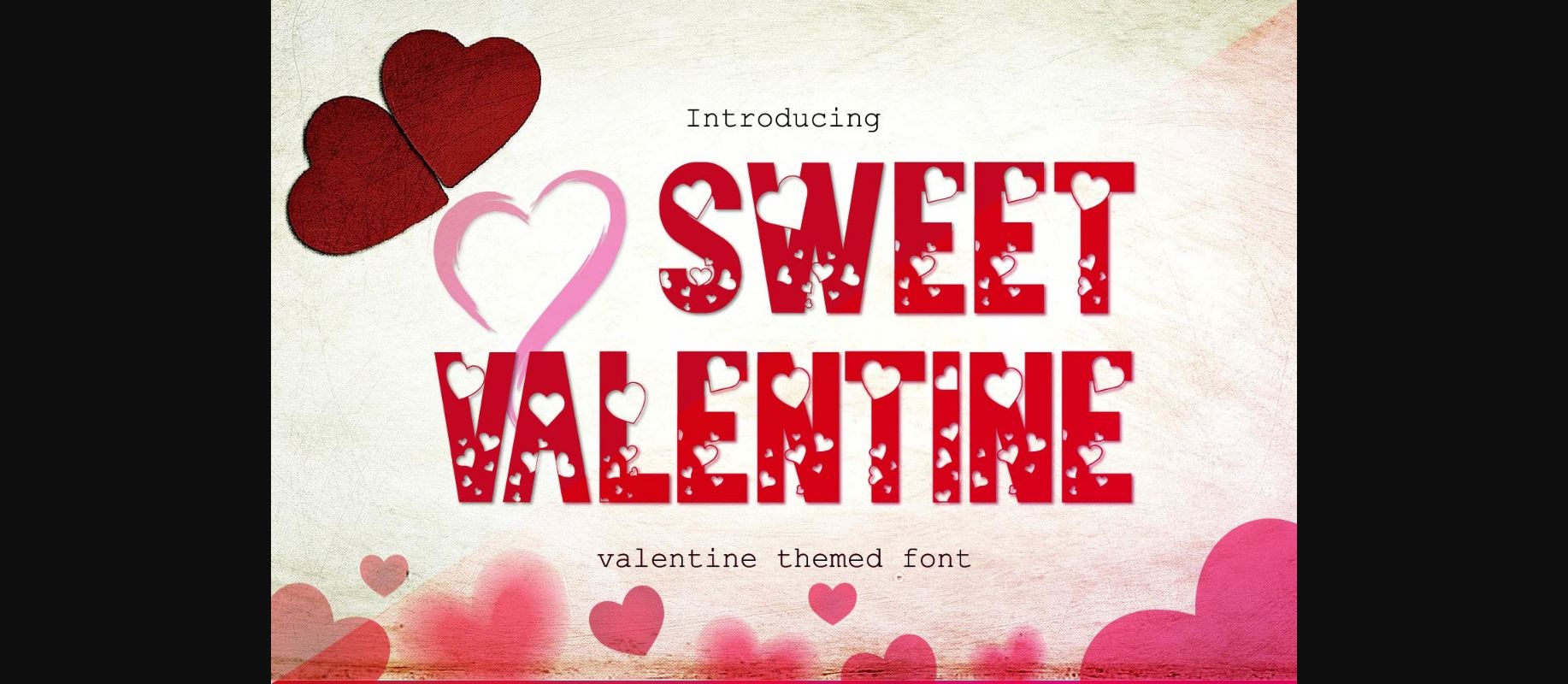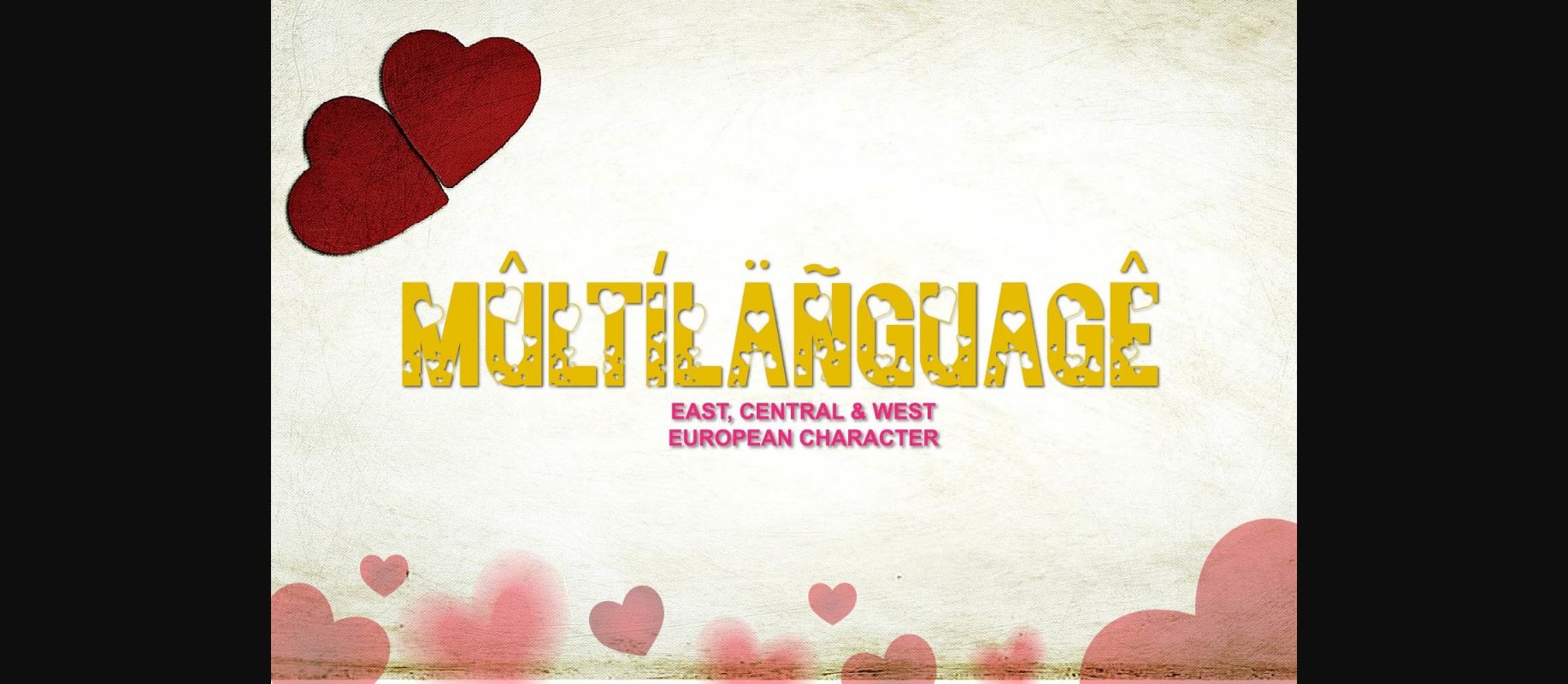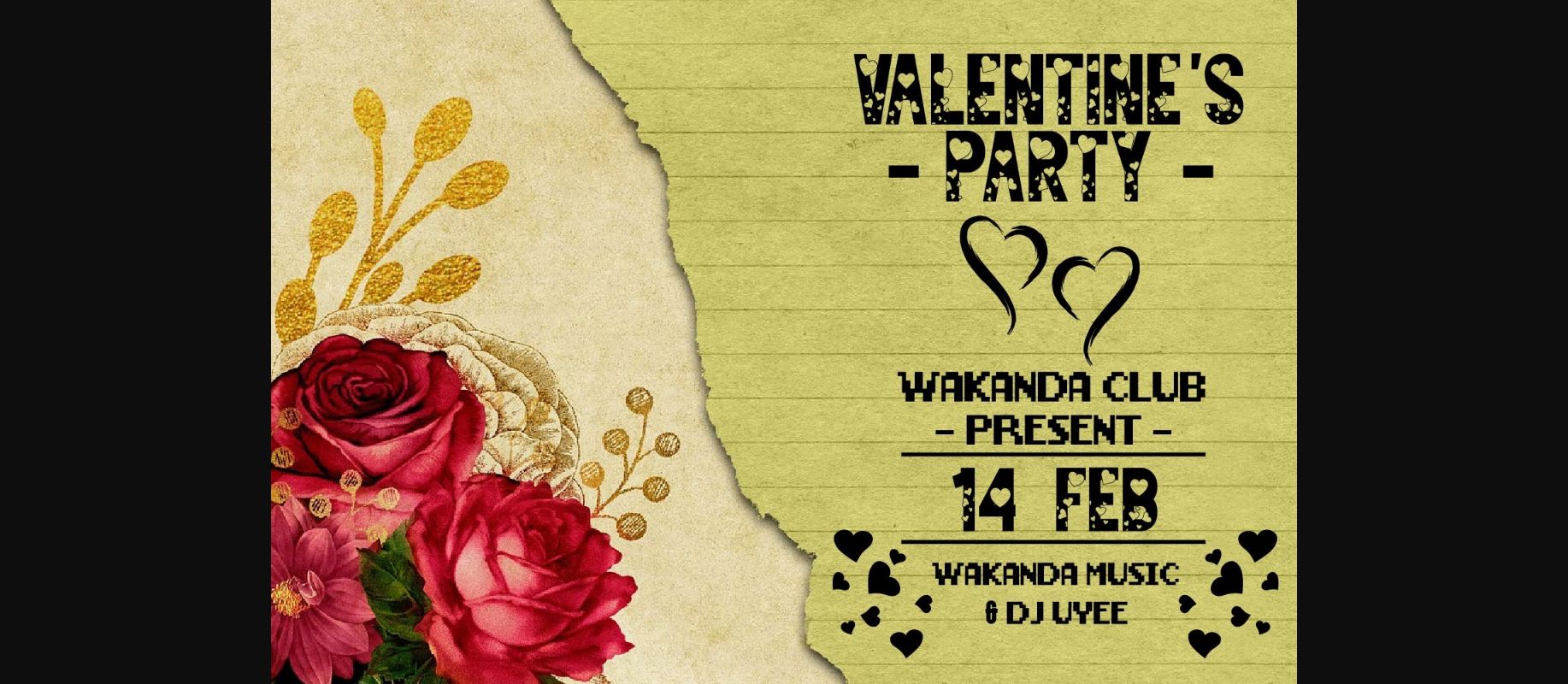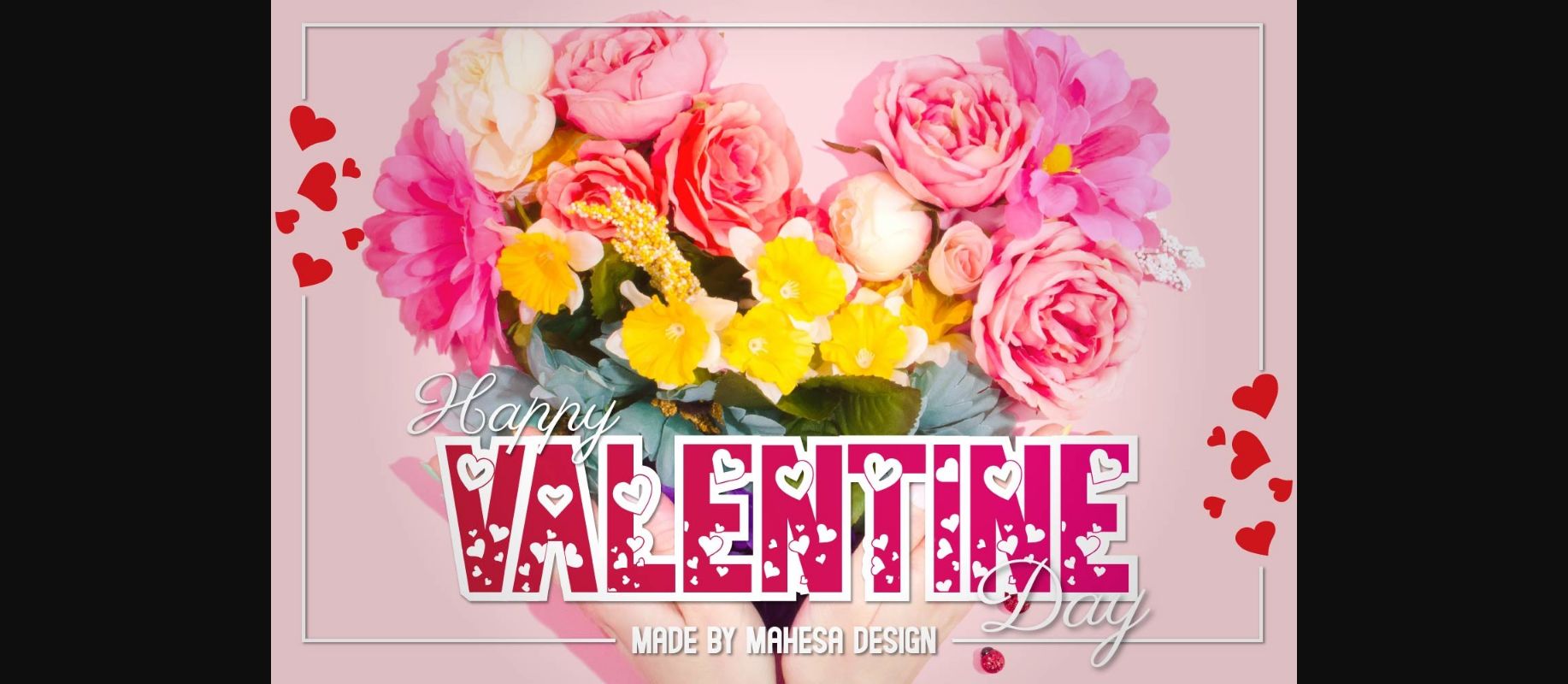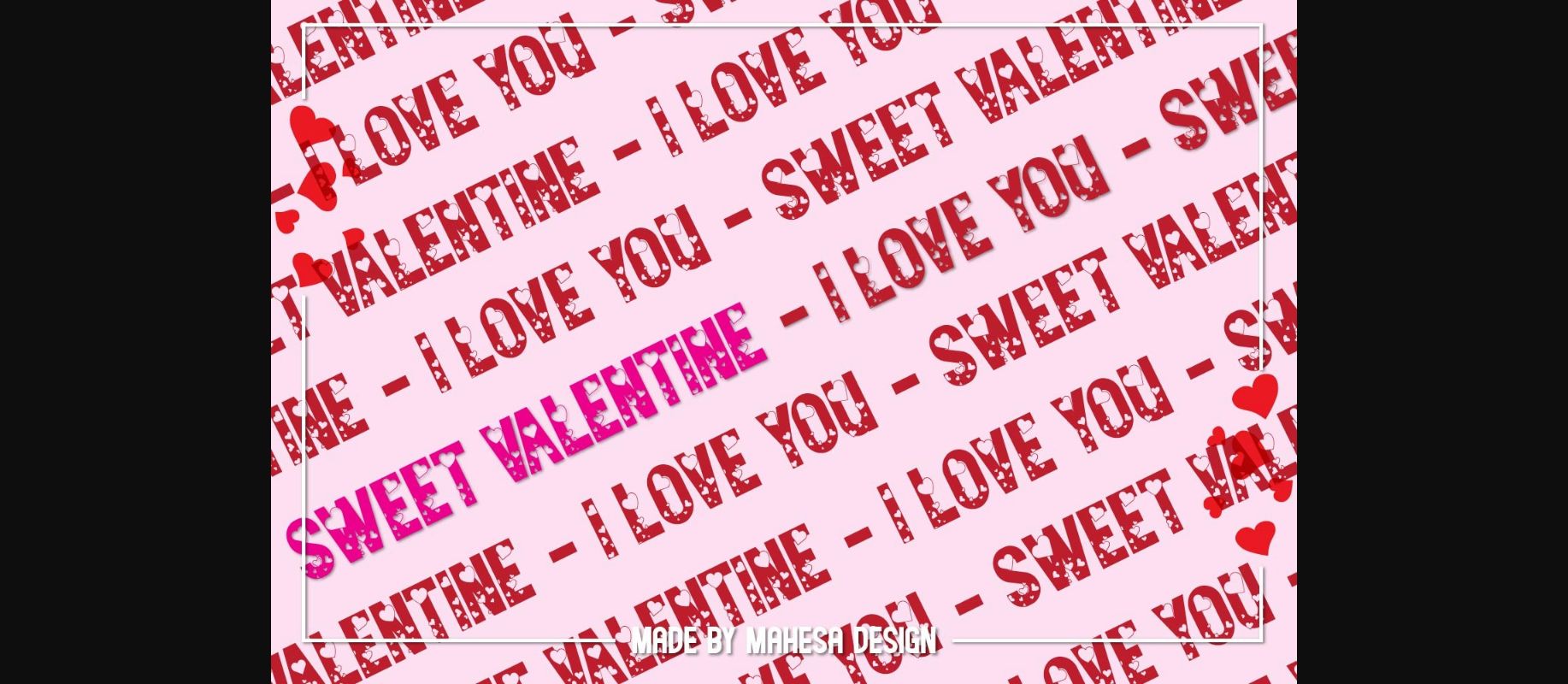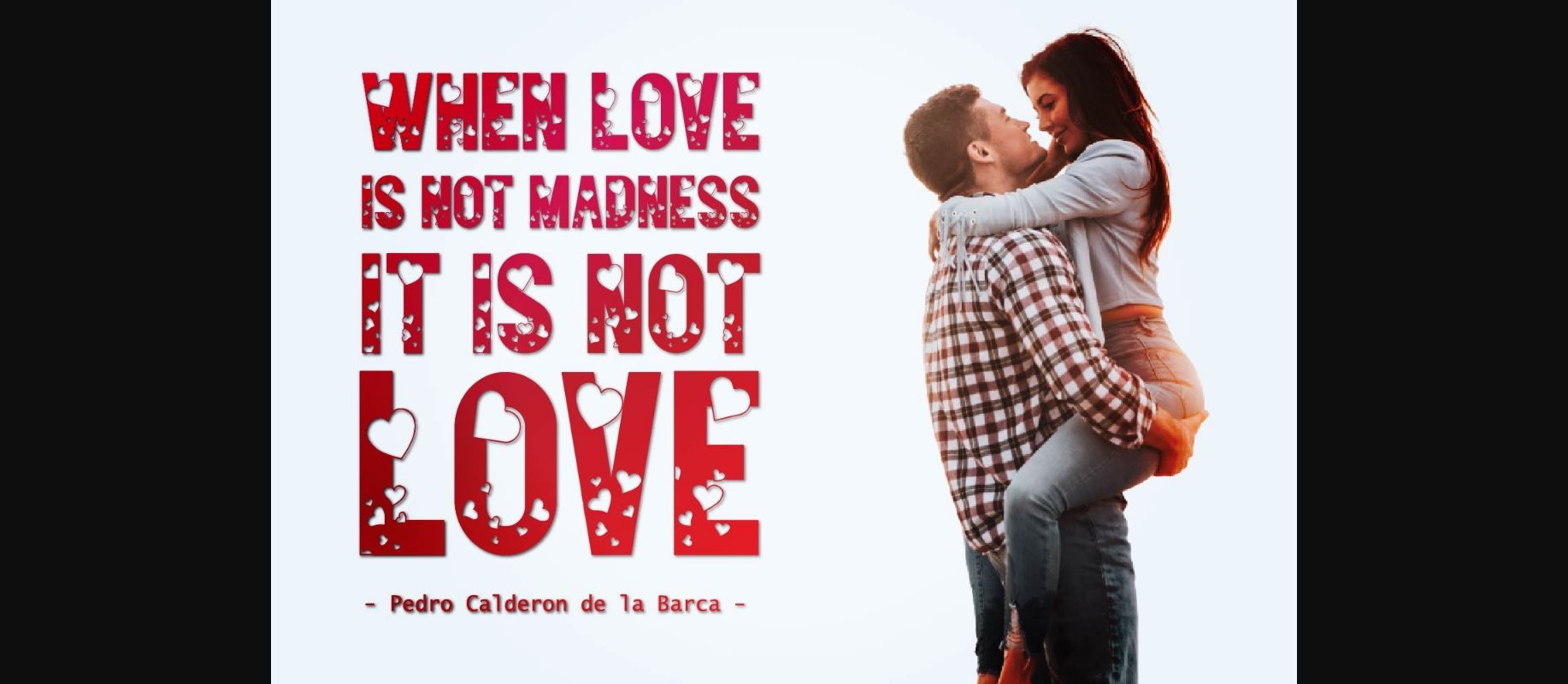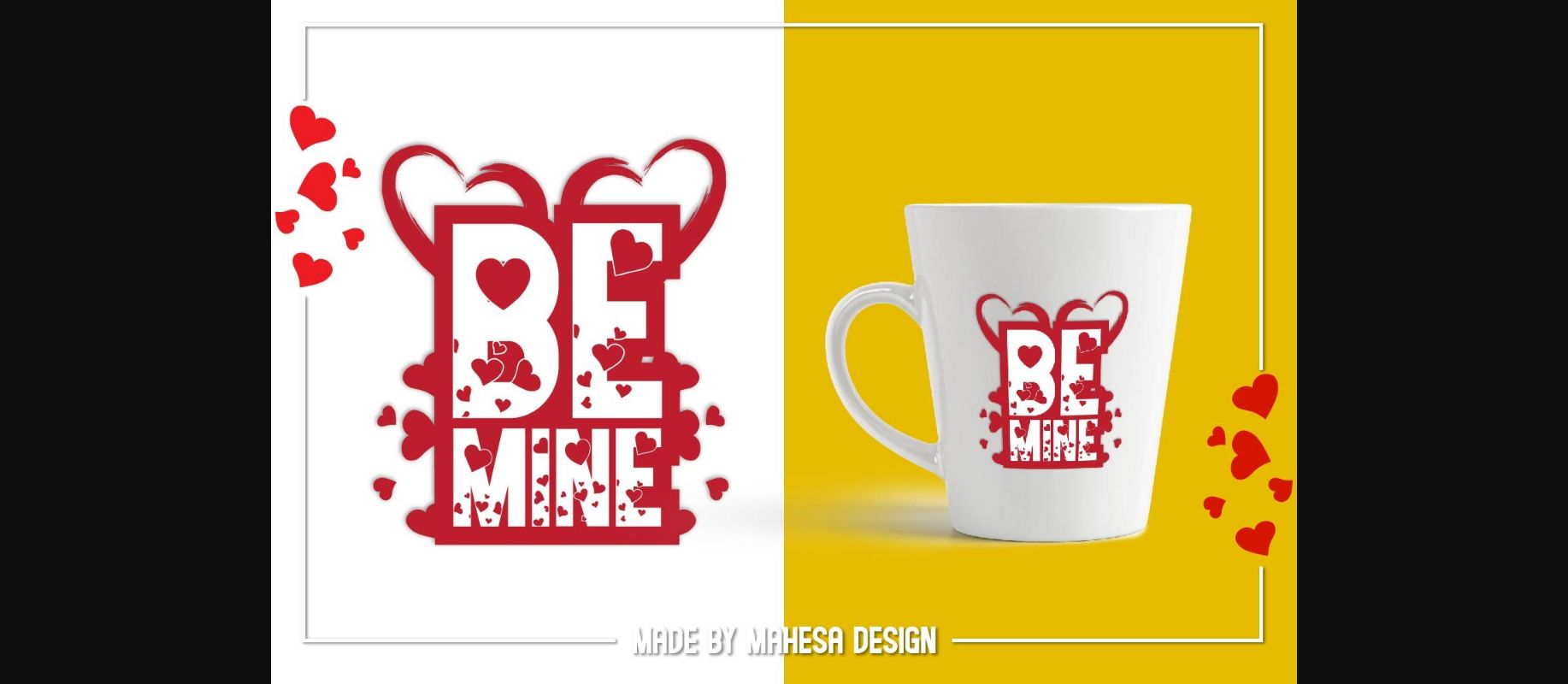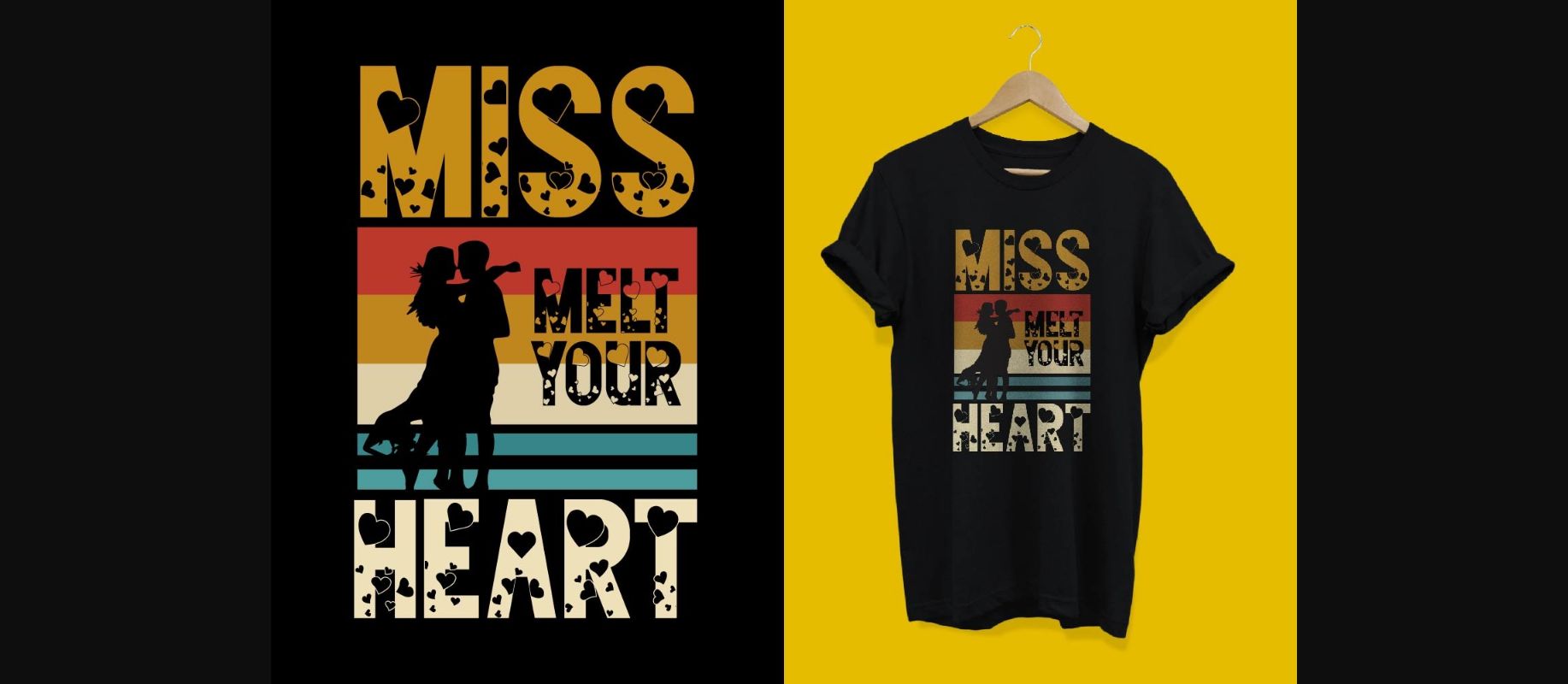
Sweet Valentine Font
About Sweet Valentine Font
Sweet Valentine is a cute and chunky-lettered decorative font for Valentine’s Day. It is perfect for romantic cards, designs, and various decorations. Use this font for your designs and explore its endless possibilities!